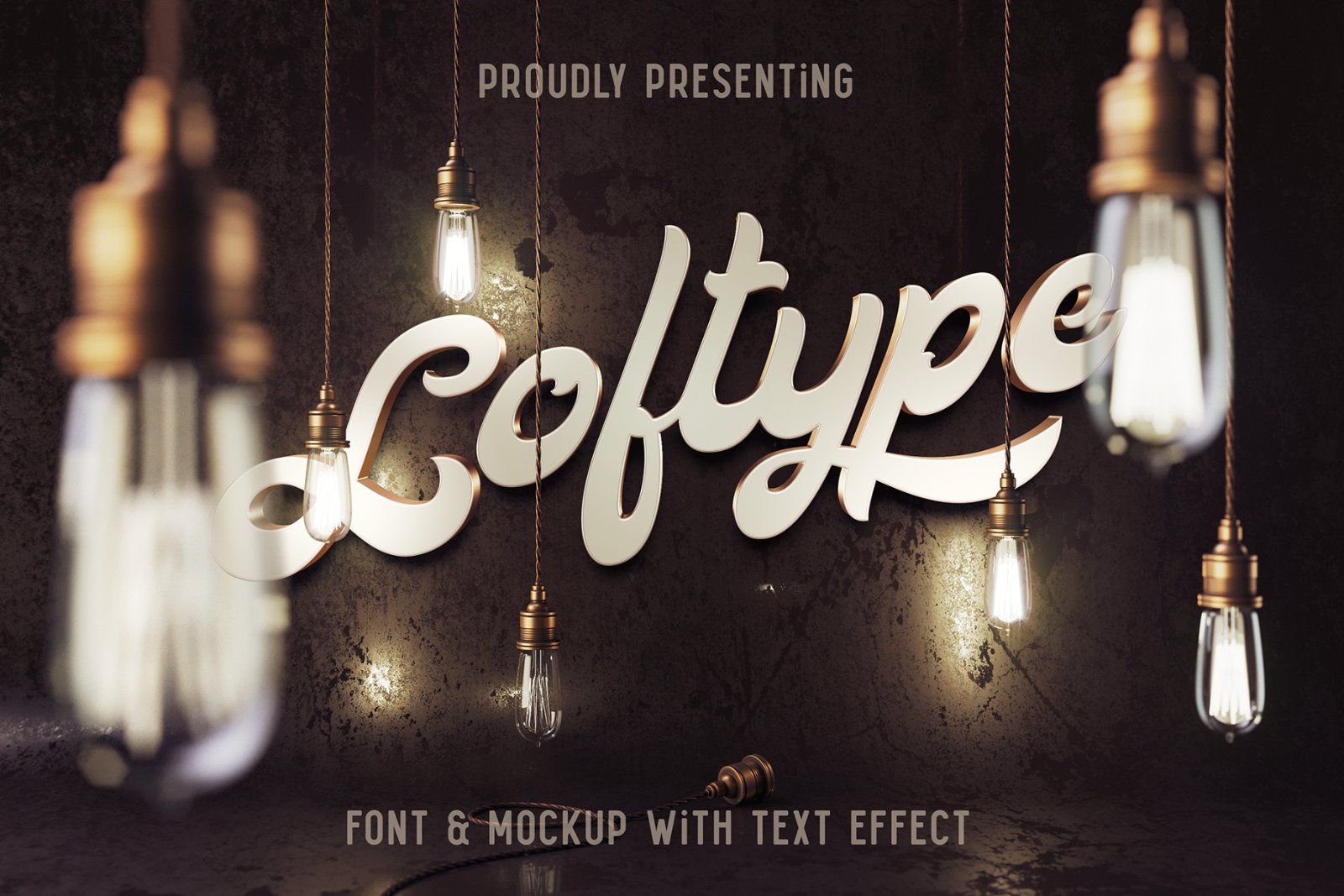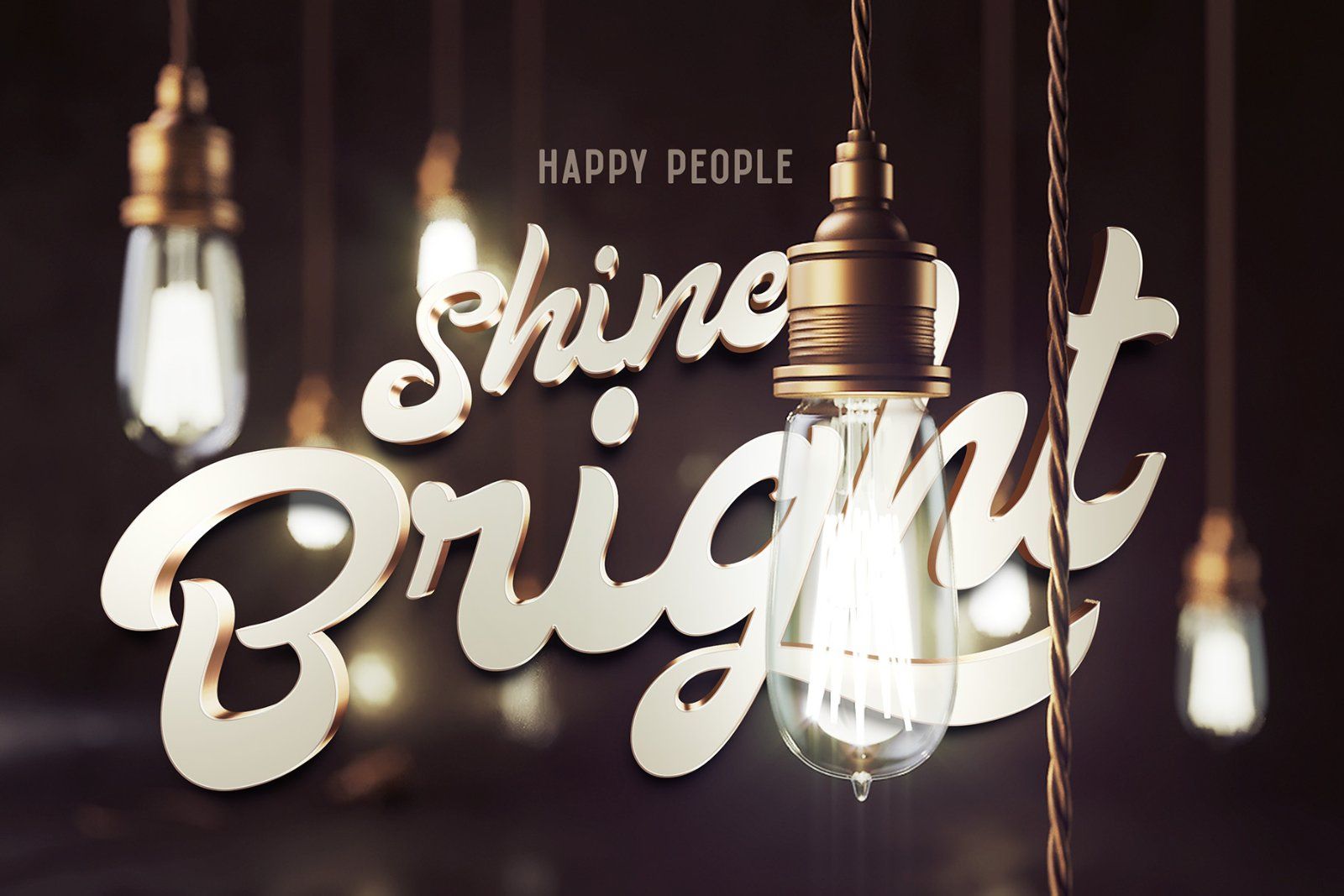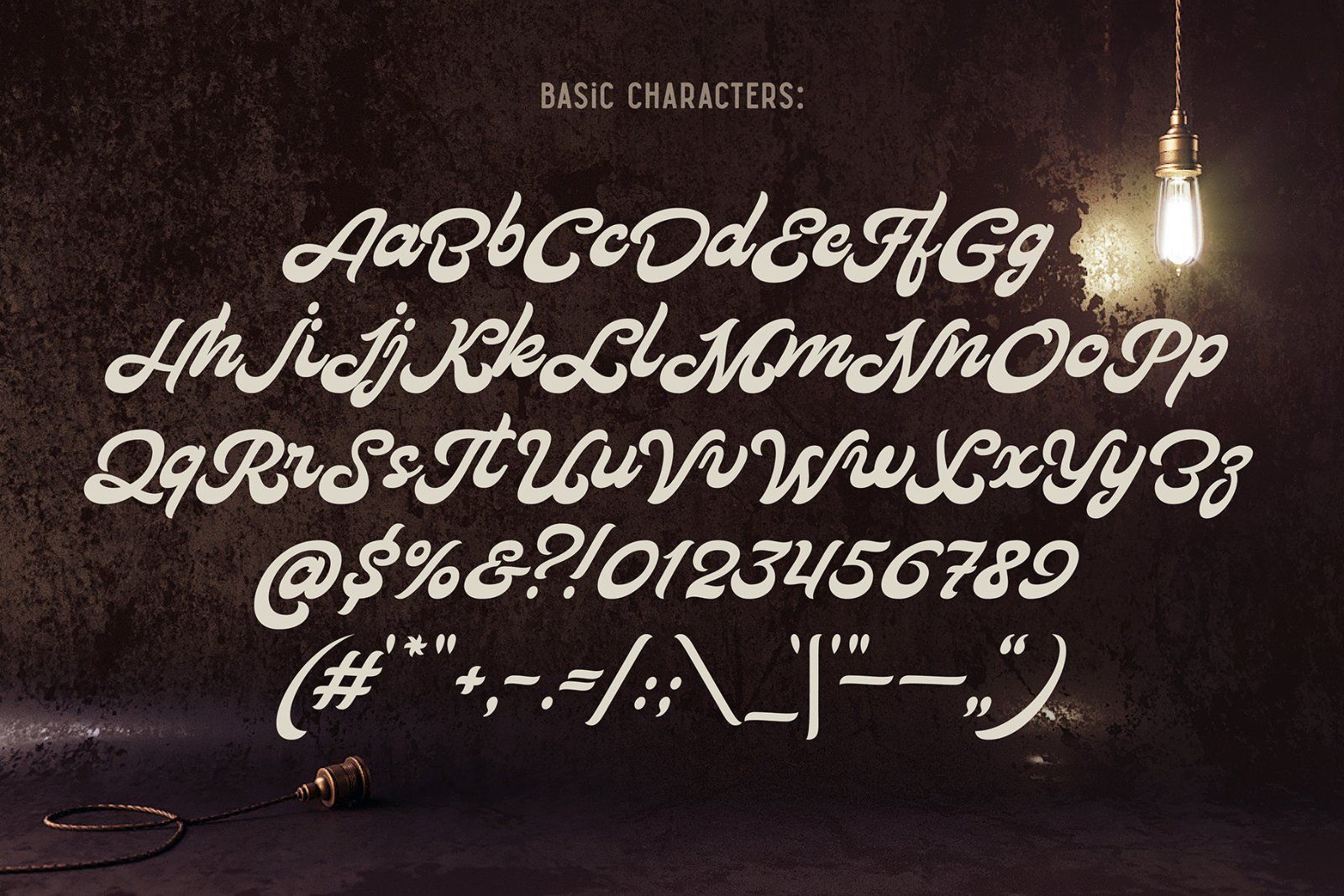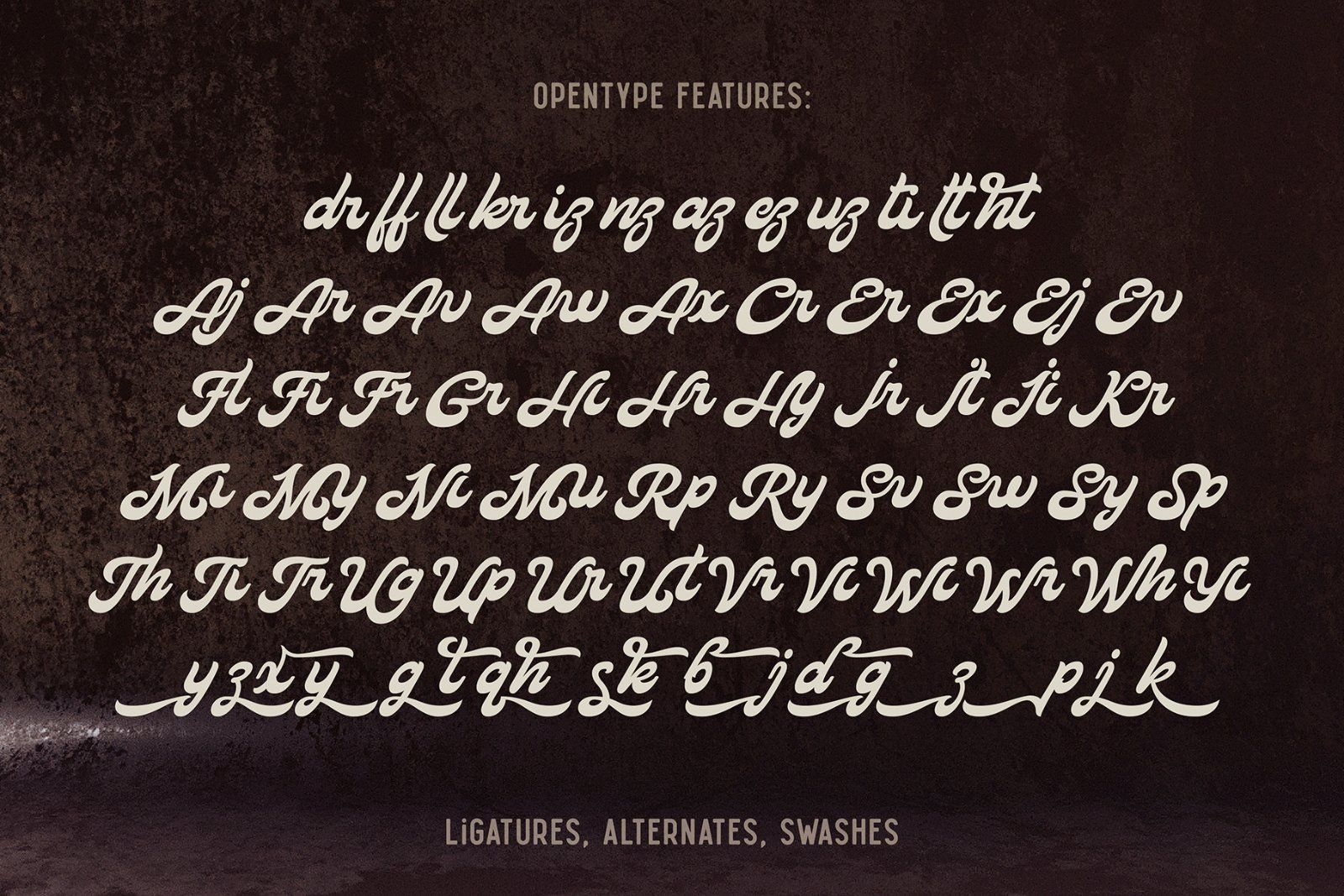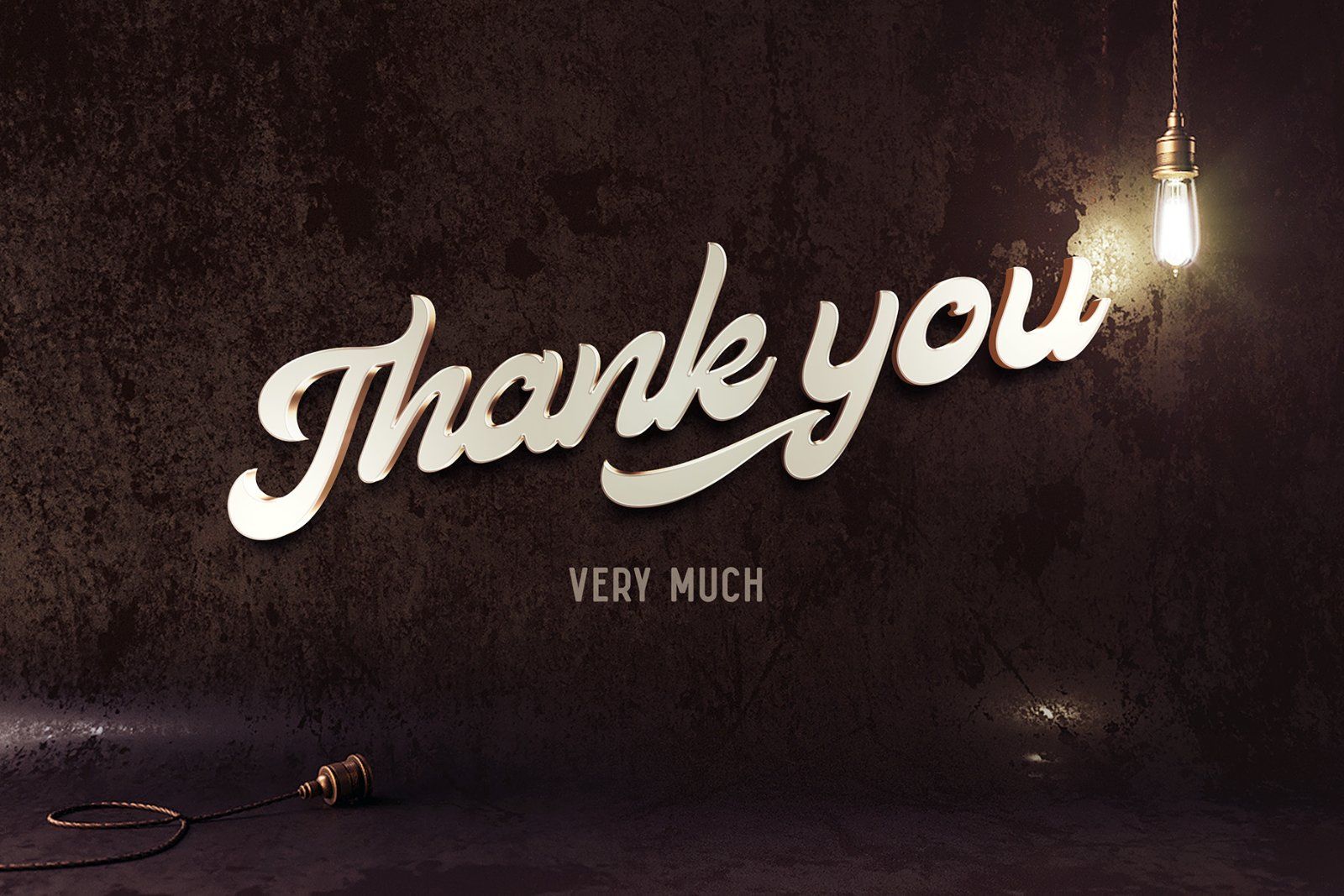
Hello! Presenting a design set named "Loftype". It includes a font files with various OpenType features - lots of ligatures and alternate characters with swashes (you can access them trough "OpenType" tab, or manually insert them from "Glyphs" tab). Also you will get a rendered mockup scene with vintage lamps and great extruded text effect. The result you can see on the first screenshot (how to use it, you'll find inside Readme.txt).
Note: This font contains only Latin characters (all available characters you can see on 2nd & 4th screenshots)